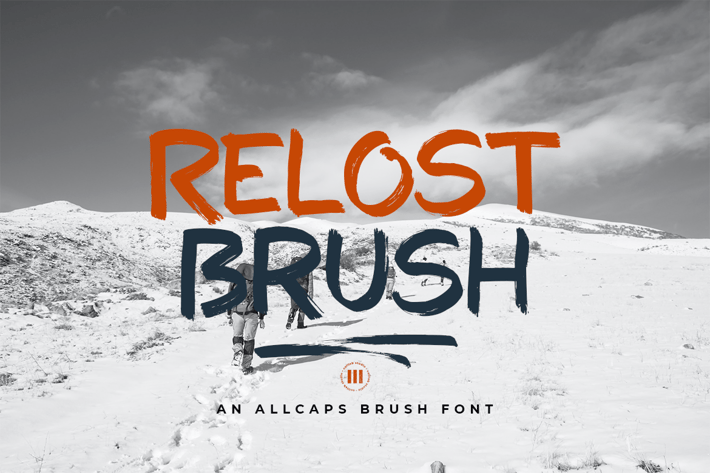
Relost Brush - A Wild Brush Font
Relost Brush is an all caps brush display font that is suitable for design projects; wild display, adventure, playful theme, logo, branding, poster, quotes, display, beautiful stationary art, eye-catching social media posts, and any other designs.
Full All Caps Glyphs
SomeLigatures
Some Alternates
Some Underline Swashes (just type c1 until c9 to feature it)
Numbers, punctuations, and symbols